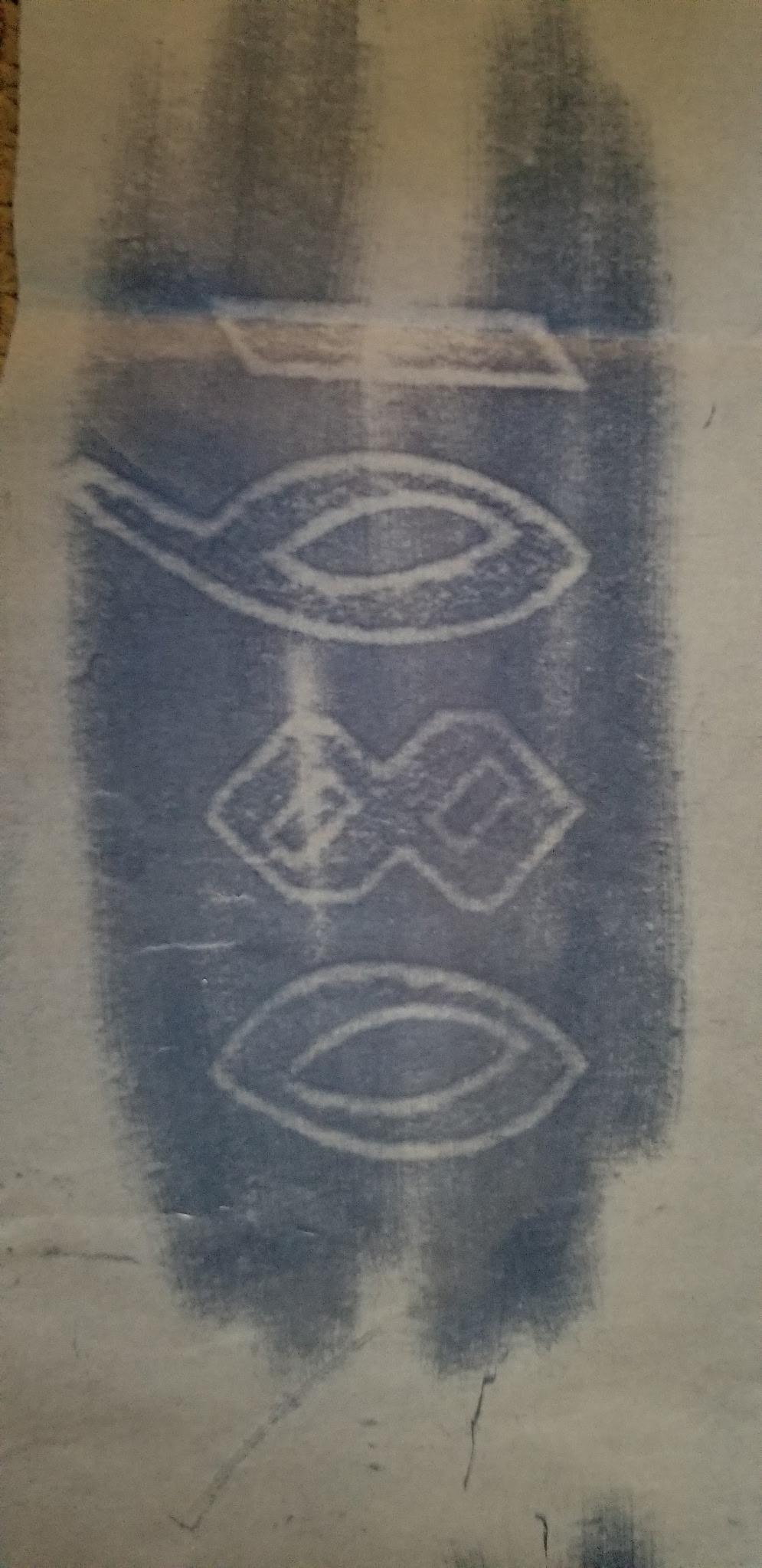
This is possibly, or even likely to be, hand-drawn. However, these numbers are very similar to an old typeface named Bradley. There are several digital versions available.